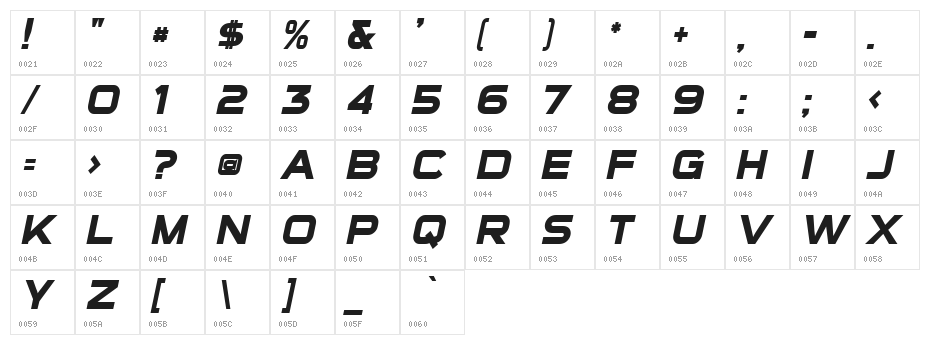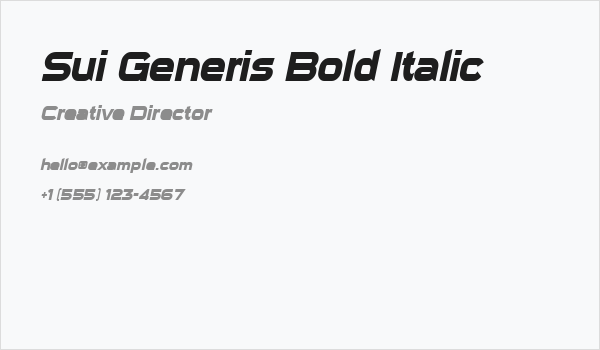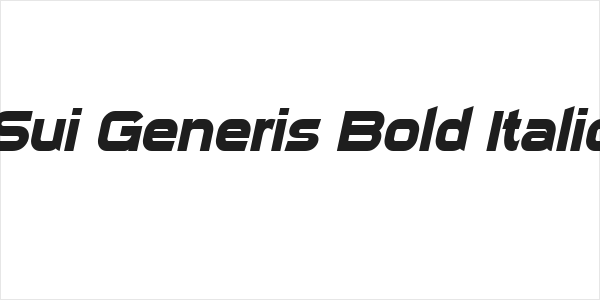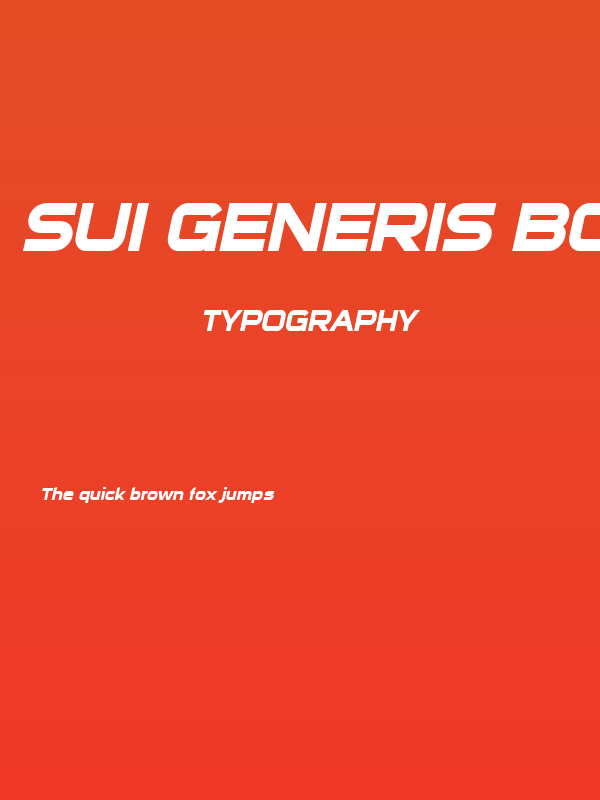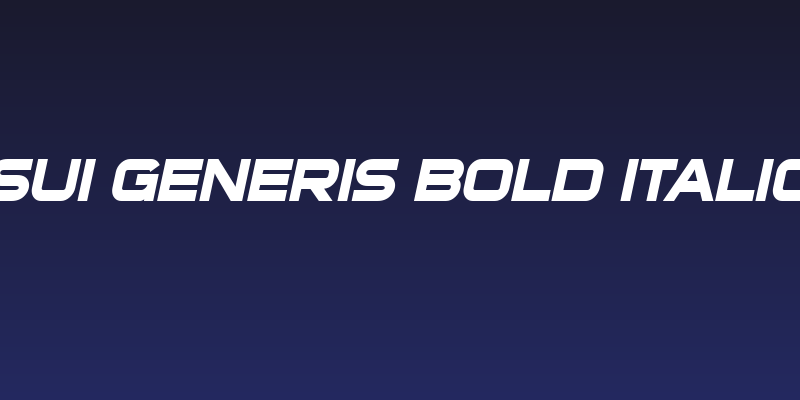
Sui Generis Bold Italic Font
Sui Generis Bold Italic Description
This font features a bold and italicized style with a modern and dynamic appearance. The characters are slightly slanted, giving a sense of motion and energy. The strokes are thick and consistent, providing a strong visual impact. The uppercase and lowercase letters maintain a uniform height, while the numerals and special characters are designed to complement the overall aesthetic. The font's design is clean and legible, making it suitable for various applications where a bold statement is needed.
| Proposed Projects | Ideal for branding, advertising, sports team logos, and dynamic headlines. |